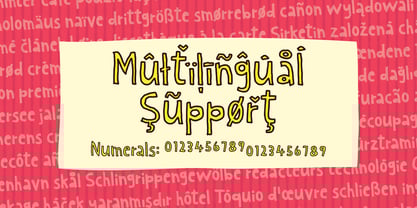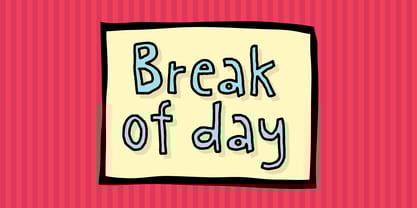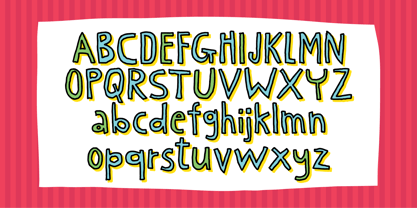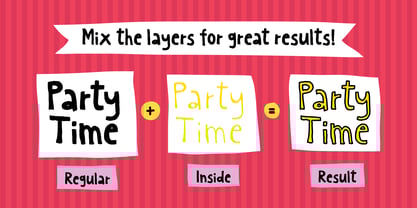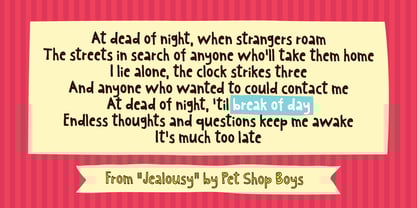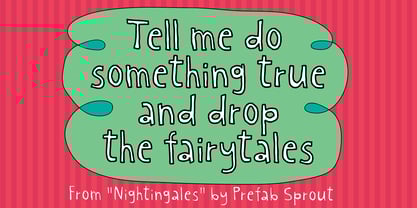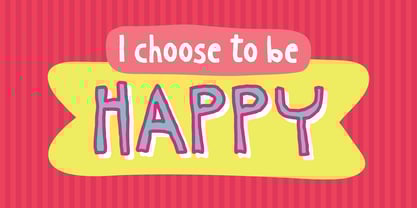
Break of day
by Bogstav
The Break of day Font Family was designed by Jakob Fischer and published by Bogstav. Break of day contains 3 styles and family package options. More about this family
Break of day is my playful and organic looking sans font. Suitable for a wide range of things - such as magazine or book covers, packaging, products for organic stuff or even kids products. You may quickly notice the uneven doodle vibe, and a warmth and charm, which makes it an obvious choice for anything that needs a handmade and creative expression. Break of day comes in both Regular, Inside and Outline - mix them for great results!
Designers: Jakob Fischer
Foundry: Bogstav